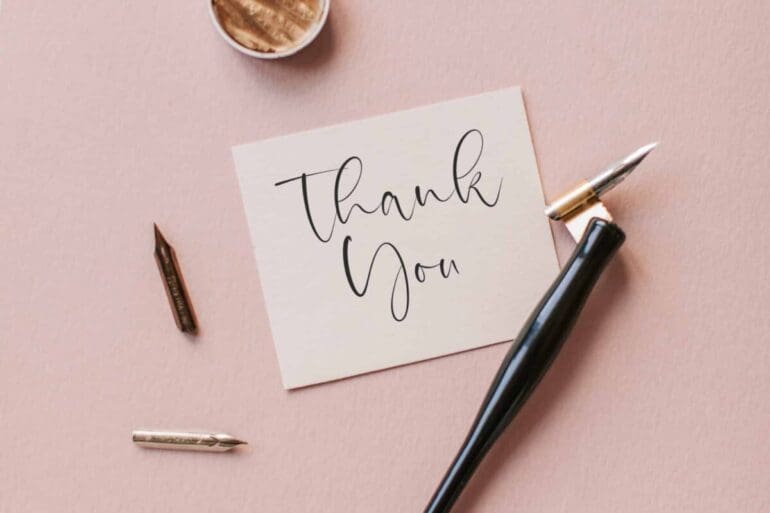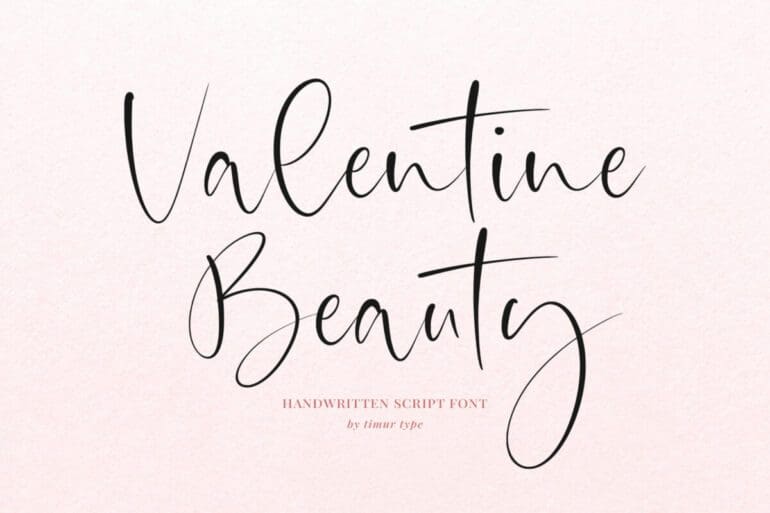
Valentine Beauty Font
Valentine Beauty is a stylish and incredibly elegant script font. It looks stunning on wedding invitations, thank you cards, quotes, greeting cards, logos, business cards, and every other design which needs a handwritten touch.